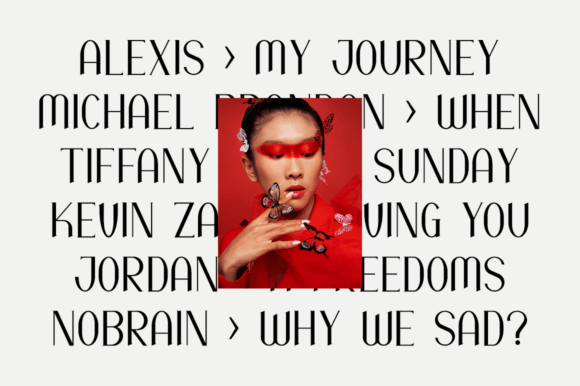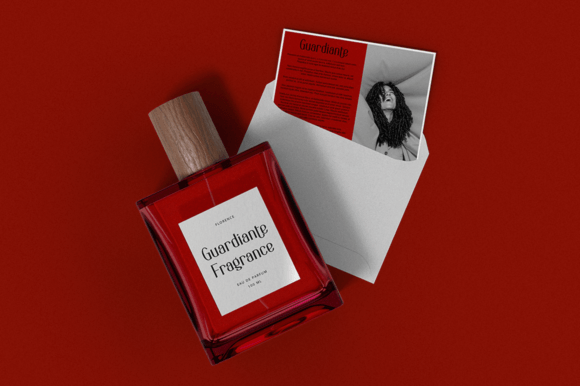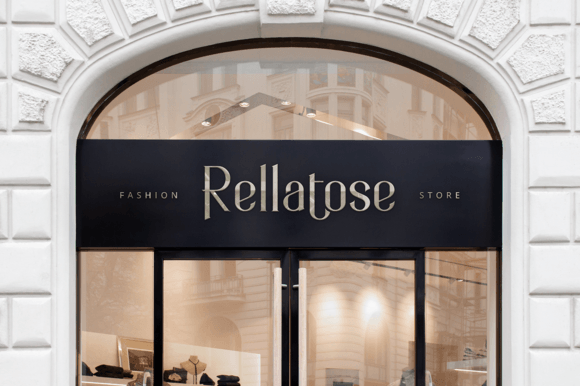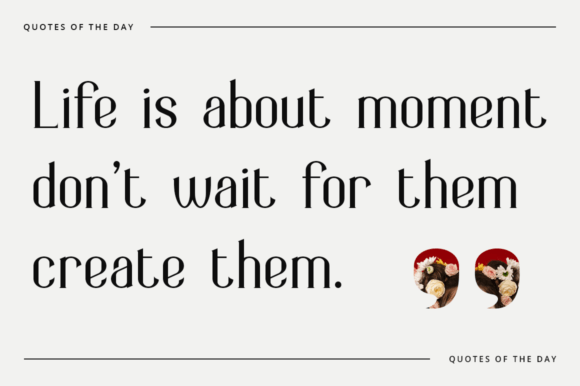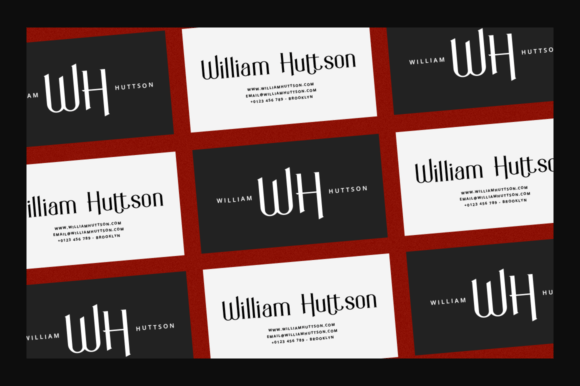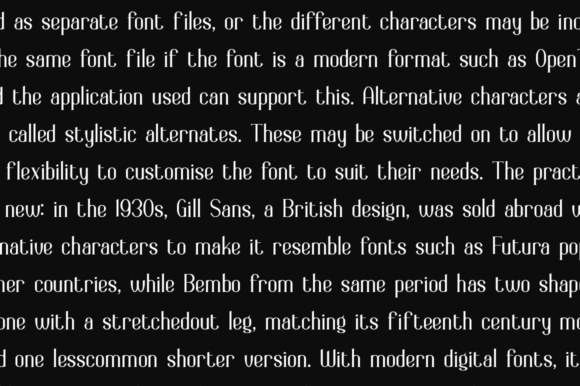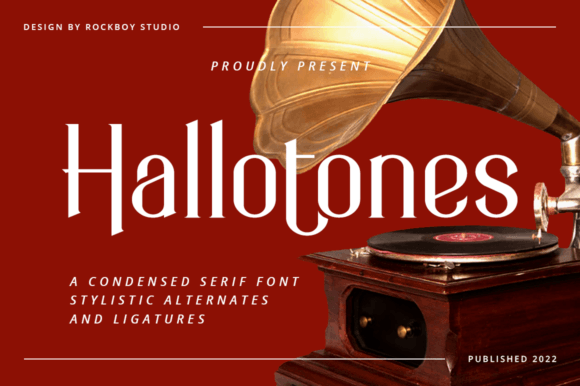
Introducing Hallotones Font: The Ultimate Serif Font for Creative Projects
Are you tired of using the same old fonts for your creative projects? Look no further! Hallotones Font is here to revolutionize the way you approach typography. This distinct, bold, and authentic serif font is masterfully designed to become a true favorite among designers and crafters. With its unique character and versatility, Hallotones Font has the potential to bring each of your creative ideas to the highest level!
What Makes Hallotones Font Stand Out?
Hallotones Font is not just another serif font. Its bold and authentic design sets it apart from the rest, making it perfect for projects that require a touch of elegance and sophistication. Whether you’re working on a logo, branding, packaging, or any other creative project, Hallotones Font is sure to make a statement.
Benefits of Using Hallotones Font
So, what are the benefits of using Hallotones Font for your creative projects? Here are just a few:
- Unique and Authentic Design: Hallotones Font boasts a distinct and bold design that will set your project apart from the rest.
- Versatility: With its serif design, Hallotones Font is perfect for a wide range of creative projects, from logos and branding to packaging and more.
- Time-Saving: No need to spend hours designing a custom font – Hallotones Font is ready to use right out of the box.
Tips and Tricks for Getting the Most Out of Hallotones Font
Here are a few tips and tricks for getting the most out of Hallotones Font:
- Experiment with Different Sizes: Hallotones Font looks great in large and small sizes, so don’t be afraid to experiment with different sizes to find the perfect fit for your project.
- Pair it with Other Fonts: Hallotones Font pairs well with a variety of other fonts, so try combining it with different fonts to create a unique and eye-catching design.
- Use it for Headlines and Titles: Hallotones Font is perfect for headlines and titles, so use it to add a touch of elegance and sophistication to your project.
Whether you’re a seasoned designer or just starting out, Hallotones Font is sure to become a favorite in your toolkit. Its bold and authentic design makes it perfect for a wide range of creative projects, and its PUA encoding ensures seamless integration with popular design software.